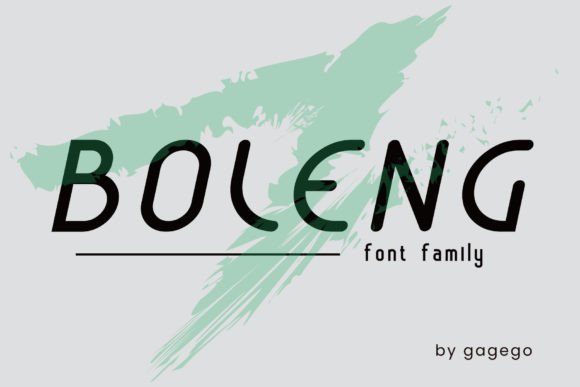
Presenting the captivating Boleng Font, a masterpiece in the realm of sans-serif fonts. Immerse yourself in the world of boundless creativity as you discover the magic of Boleng. This exceptional font family, meticulously crafted by the talented gagego, exudes elegance and simplicity, poised to elevate your design projects to new heights.
With its clean lines, unadorned curves, and minimalist aesthetic, Boleng is the epitome of sophistication. Experience the joy of effortlessly creating modern and timeless designs that resonate with your audience. Whether you're a seasoned designer or just starting your creative journey, Boleng is your perfect companion, guiding you towards design excellence.
Unleash your imagination and let Boleng be your muse as you embark on a journey of creativity. Whether you're designing captivating book covers that leave readers spellbound, crafting logos that exude professionalism, or creating marketing materials that command attention, Boleng rises to every occasion. Its versatility knows no bounds, seamlessly adapting to a myriad of design genres.
Embrace the boundless possibilities of Boleng and watch your design dreams come to life. Transform ordinary text into captivating headlines that demand attention, craft brochures that inspire action, and design social media posts that ignite engagement. With Boleng as your trusted design partner, the creative possibilities are endless.
Don't settle for ordinary fonts that blend into the background. Choose Boleng, the font that takes center stage, leaving a lasting impression on your audience. Its timeless elegance and modern charm will elevate your designs, setting them apart from the mundane and propelling them into the realm of the extraordinary.
Experience the transformative power of Boleng today and unlock your design potential. Let your creativity soar as you create designs that captivate, inspire, and leave an indelible mark on the world.